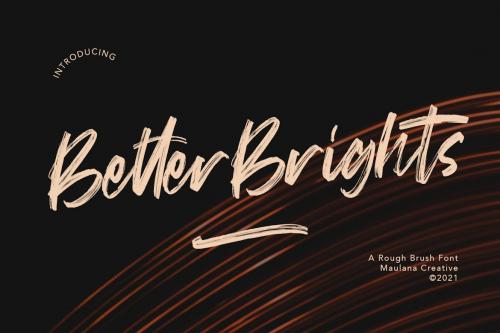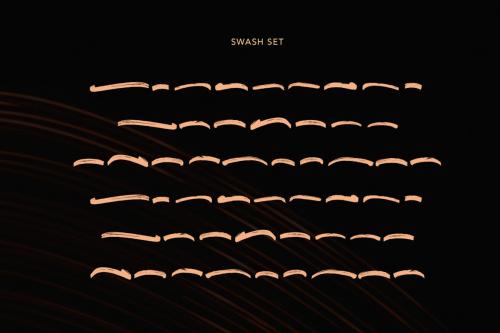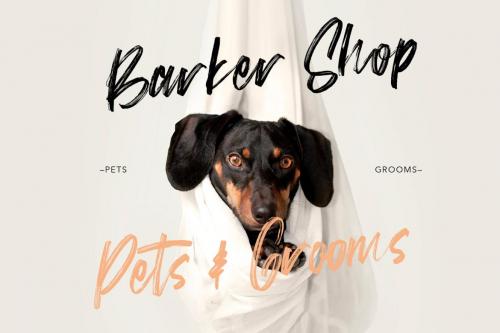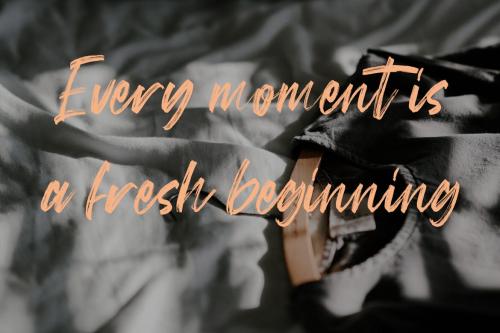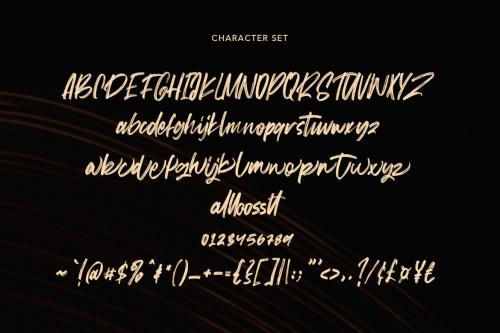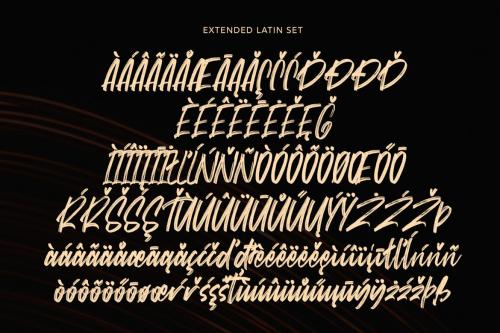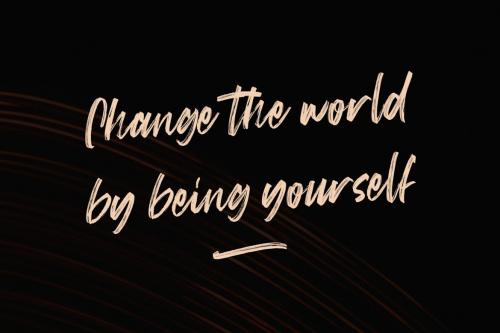
更好的亮色笔刷字体
Better Brights Brush Font
Better Brights is rough brush handwritten style font, with rough brush stroke, slanted and strong character. It has Opentype features ligatures of character and end swash lowercase alternate, To give you an extra creative work. Better Brights font support multilingual more than 100+ language. This font is good for logo design, Social media, Movie Titles, Web Design, a short text even a long text letter and good for your secondary text font with sans or serif. Make a stunning work with Better Brights font.